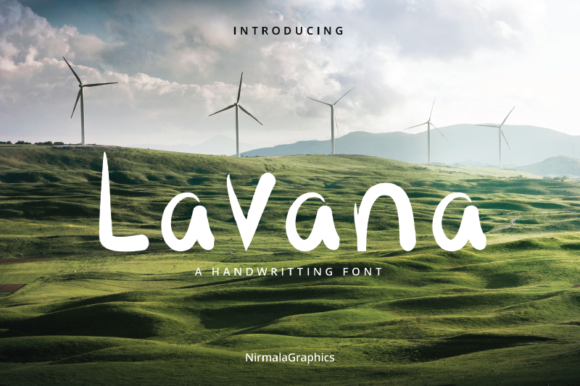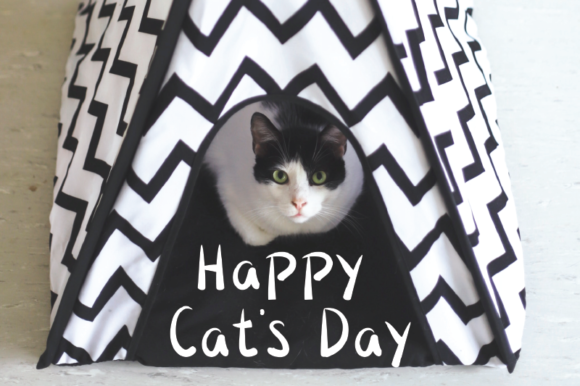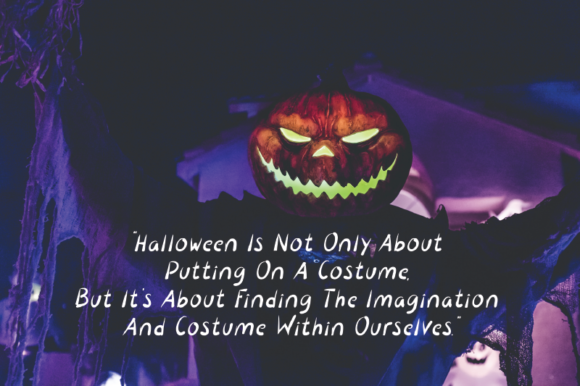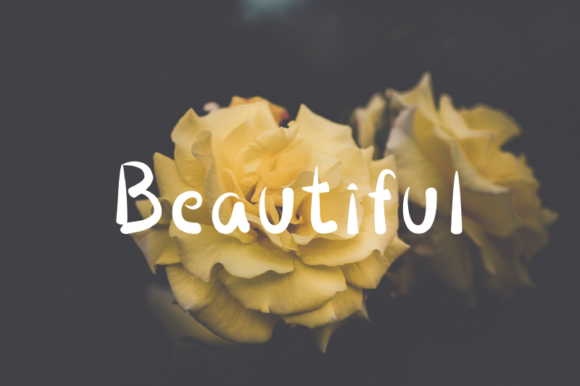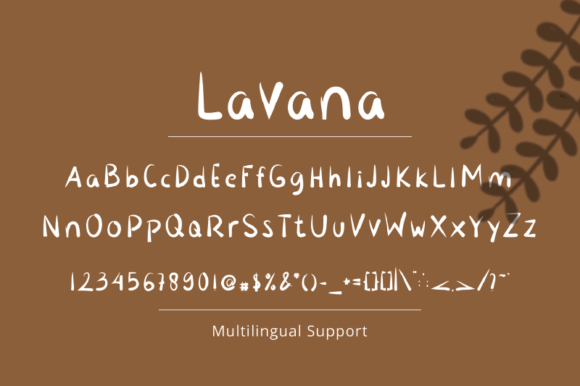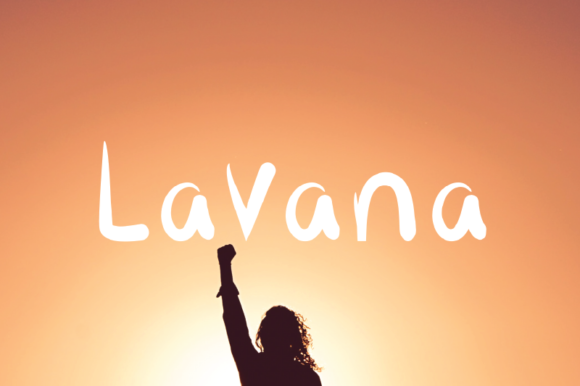
HomeScript FontsLavana Font Script Fonts Lavana Font FacebookXPinterestWhatsApp Lavana Font Poster 2 Lavana Font Poster 3 Lavana Font Poster 4 Lavana Font Poster 5 Lavana Font Poster 6 About Lavana Font Lavana is a simple handwritten font that works perfectly in any casual and authentic design context. DOWNLOAD NOW People also explored Rendstyle Font Midles Slab Font Hello Star Font Zonnie Clarisa Script Valintya Font Quita Grichi Font Hello Love Font 288 0 TagsLavana Font Previous articleRosseate FontNext articleDjoker State Font LEAVE A REPLY Cancel reply Comment: Please enter your comment! Name:* Please enter your name here Email:* You have entered an incorrect email address! Please enter your email address here Website: Save my name, email, and website in this browser for the next time I comment. Personal Use Free Grillin Personal Use Free Read more about this font Krase Personal Use Free Read more about this font Color Personal Use Free Read more about this font Stone Cold Personal Use Free Read more about this font BLOG Free Fonts Risk: Why Free Fonts Can Be Dangerous for Designers Free Fonts Risk: Why Free Fonts Can Be Dangerous for Designers Using free fonts is a common practice in web and graphic design. However, the... To increase your work productivity, choose the most readable fonts. Top 7 Google Fonts Alternatives for Faster and Privacy-Friendly Web Design (2025) How to Install and Use Fonts on Windows, macOS, and Web Projects